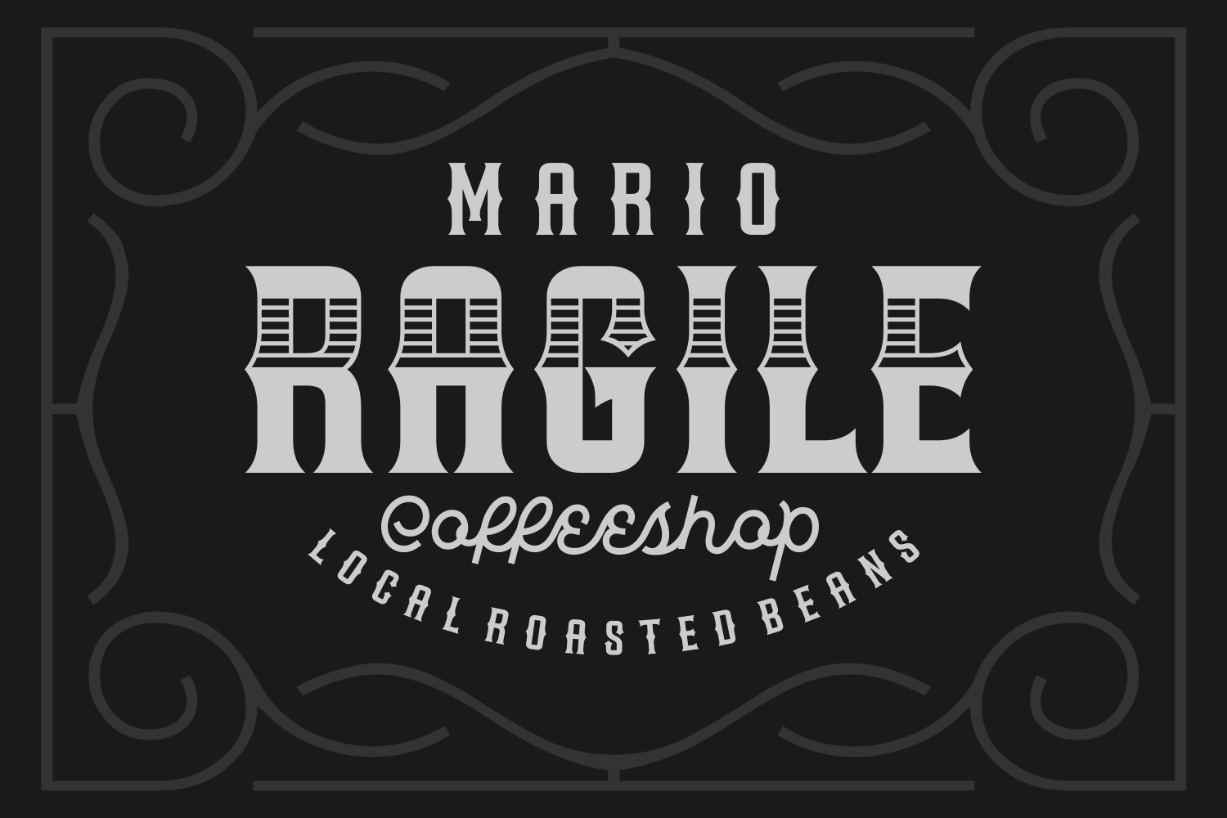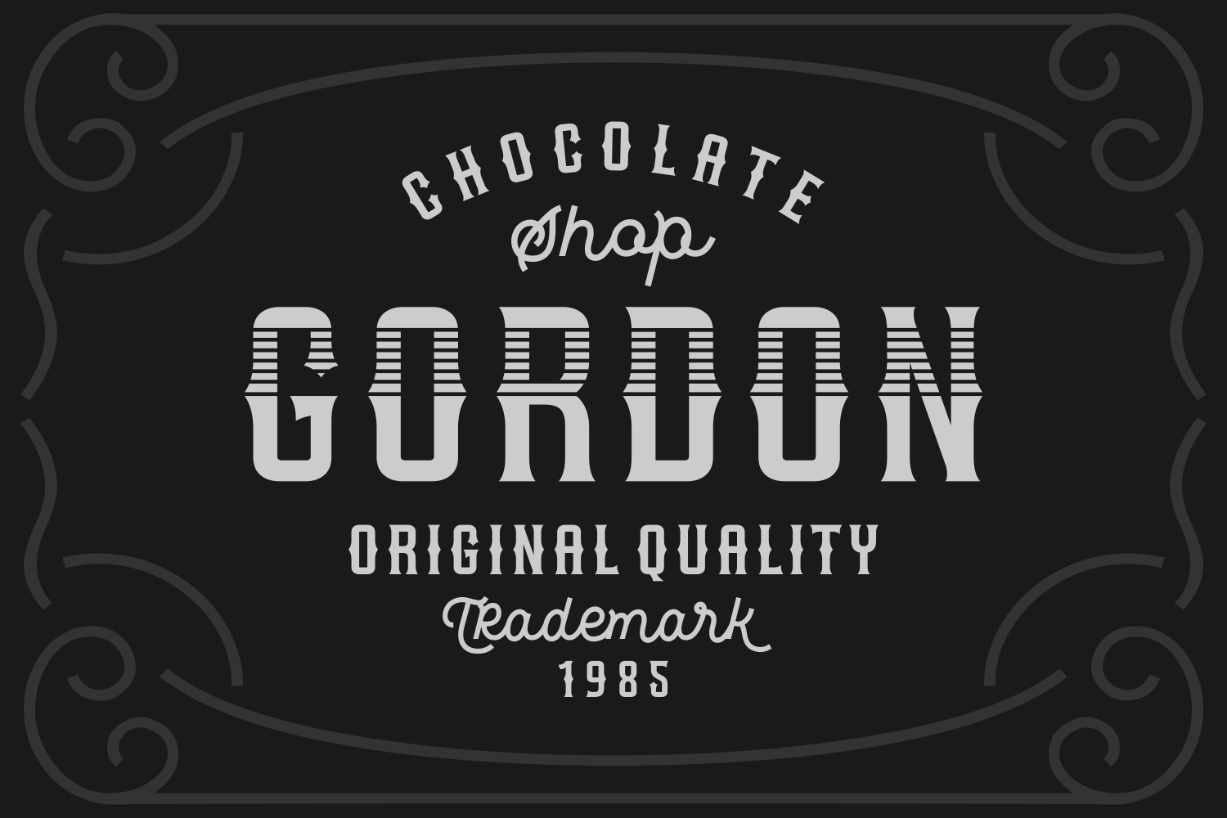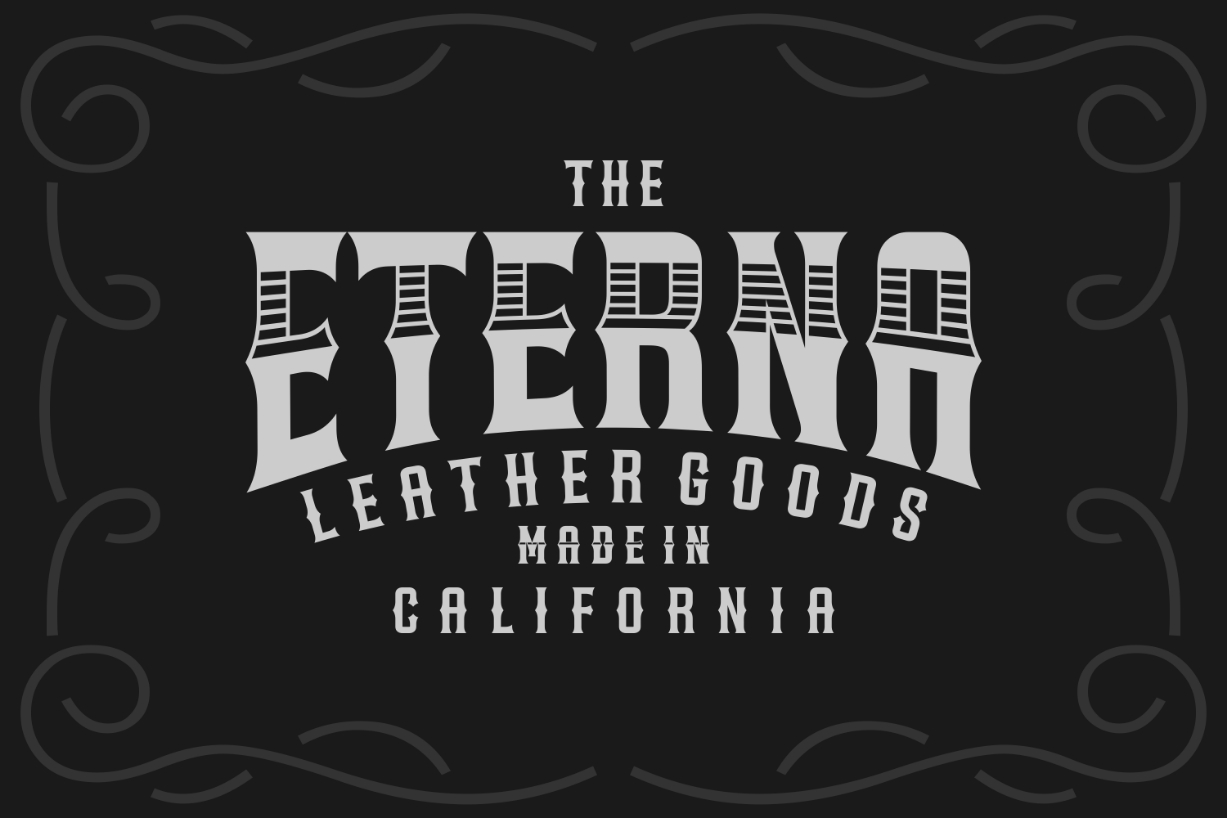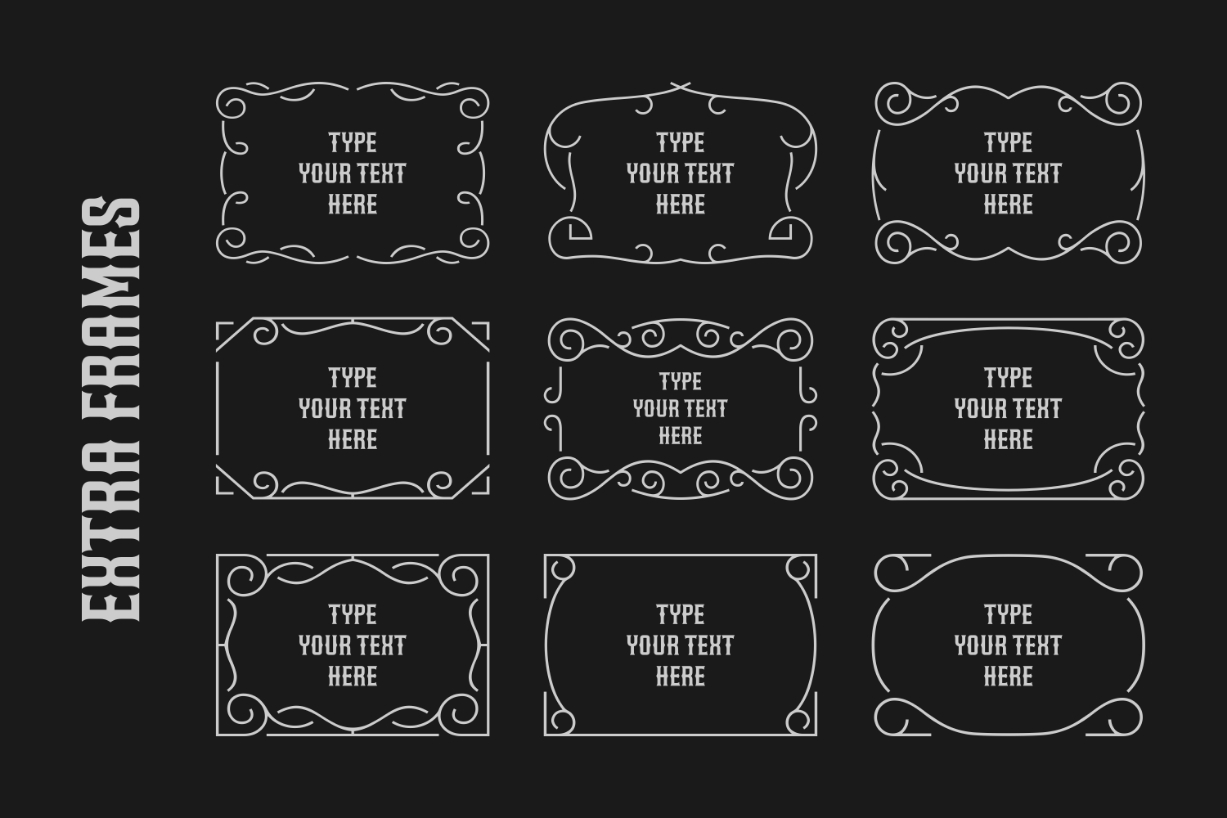
About Besta Baru Font
Besta Baru is a Vintage typeface with a bold, retro exterior.
The Besta Baru font comes packed with stunning alternates, such as carved striped, carved outline and half-filled characters.
The font also contains a set of vintage looking frames inside the extra characters.